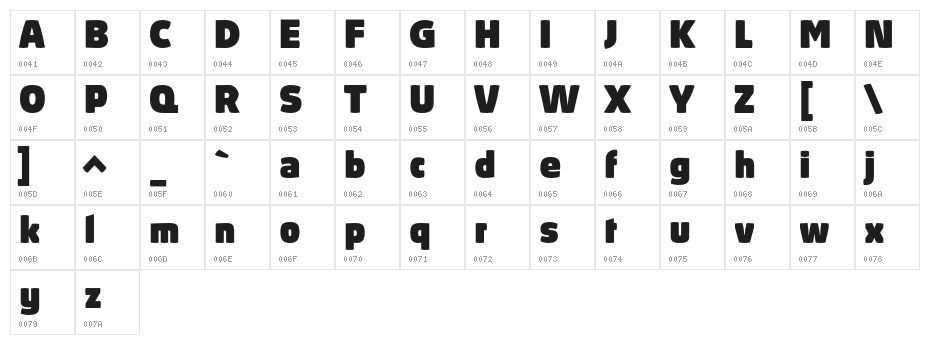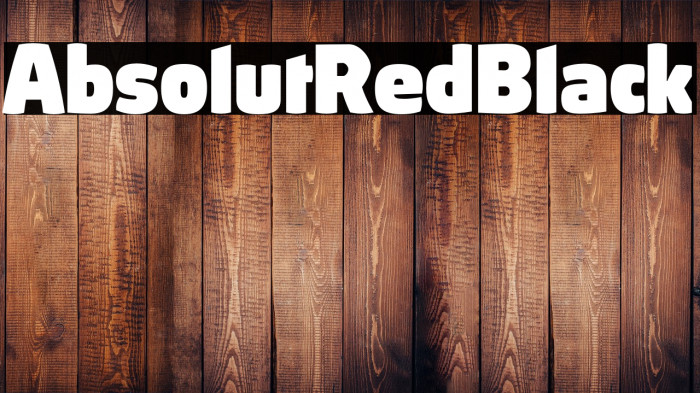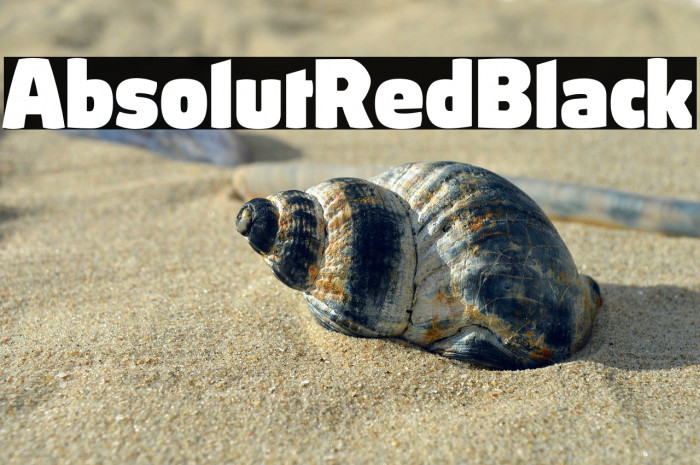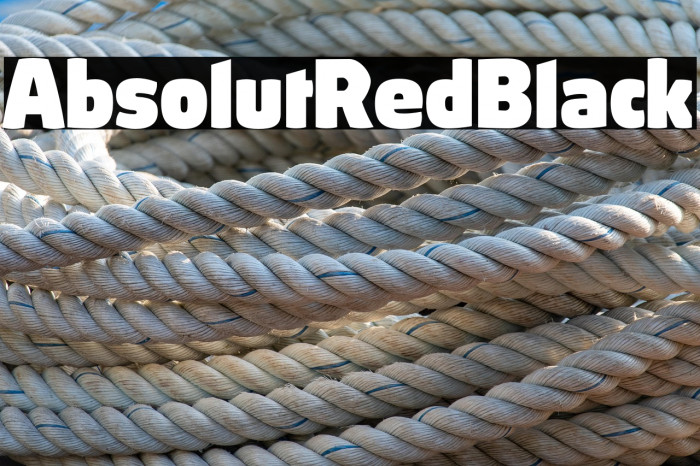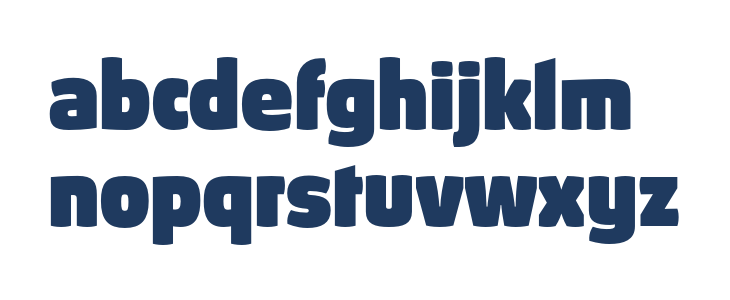
AbsolutRed-Black Font
AbsolutRed-Black Description
This font features bold, rounded characters with a strong presence. The letters are uniformly thick, giving them a robust and impactful appearance. The rounded edges soften the overall look, making it approachable yet assertive. The uppercase and lowercase letters maintain a consistent style, with a slight variation in height and width that adds visual interest. The font's design is clean and modern, suitable for various applications where a bold statement is needed. Its simplicity and clarity ensure readability while maintaining a unique character.
| Proposed Projects | Ideal for branding, headlines, posters, and advertising where a strong, clear message is needed. |